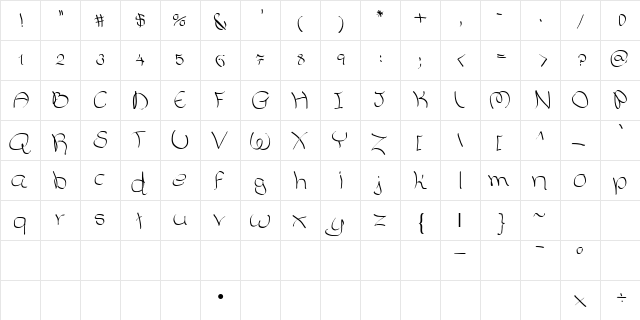
YaelOkFch Regular
Design Context for YaelOkFch Typeface
YaelOkFch is a composed and adaptable typeface that performs quietly and consistently across a wide range of design contexts.